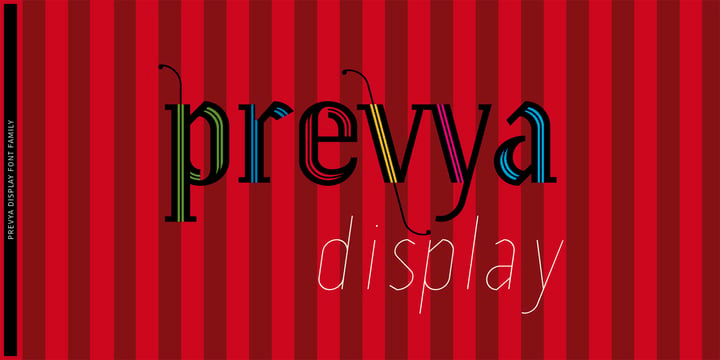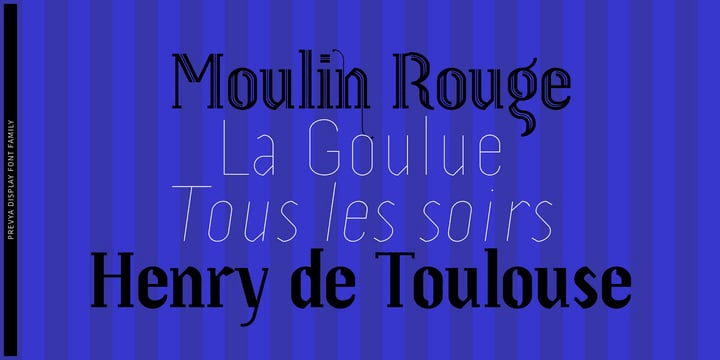
Prevya is a display family. Inspired by the metalwork of the early twentieth century. Have appropriate characteristics for ornamental titles. Is accompanied by a light version for featured texts and it has a shadow layer to combine in beautiful designs.…